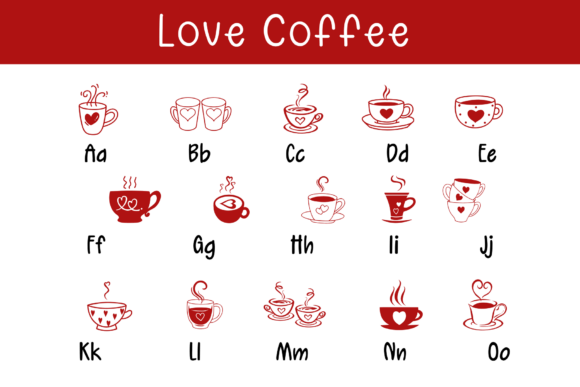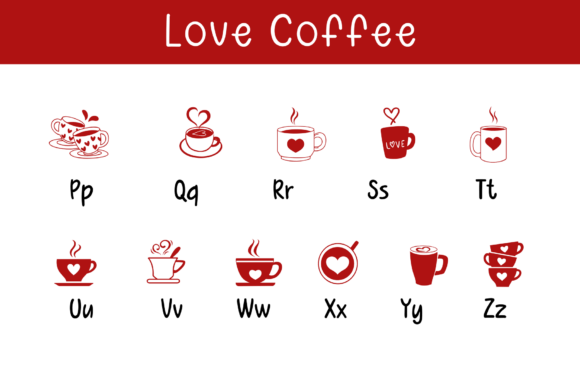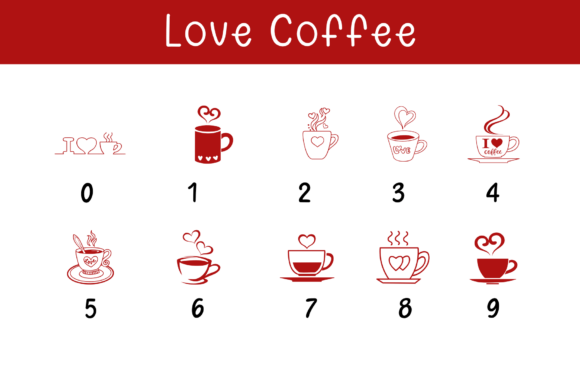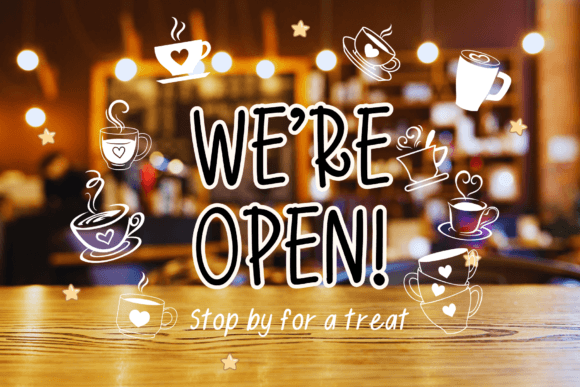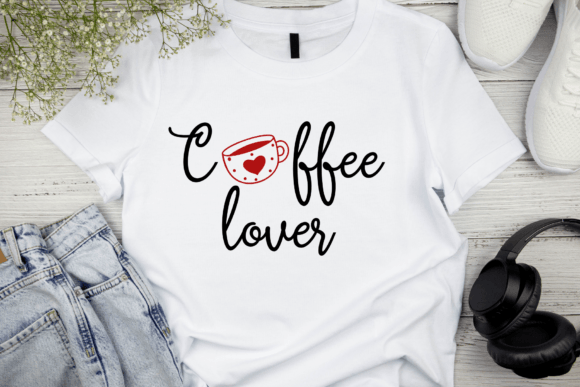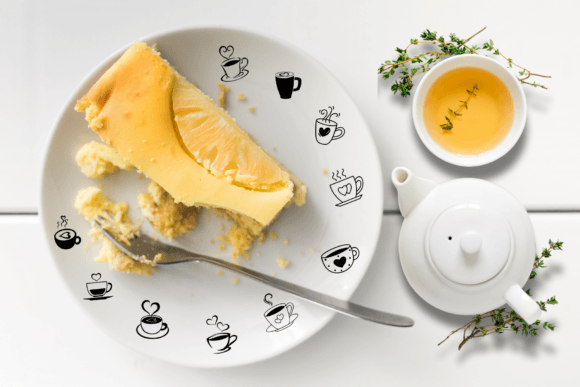
Love Coffee Font
The Love Coffee doodle font is the ideal logo design for charming coffee shops, cozy cafes, or fun coffee products. 🌟 This high-quality logo is versatile and perfect for use across various media, including logos, posters, banners, t-shirts, or merchandise designs. ☕💖